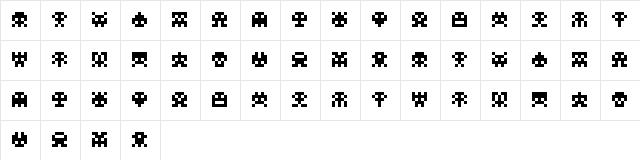
Scumskullz Regular
| Foundry | Scum Supplies |
| Designer | Nick Wellnhofer, Milan Grbovic |
Design Context for Scumskullz Typeface
Scumskullz is a composed and adaptable typeface that performs quietly and consistently across a wide range of design contexts.